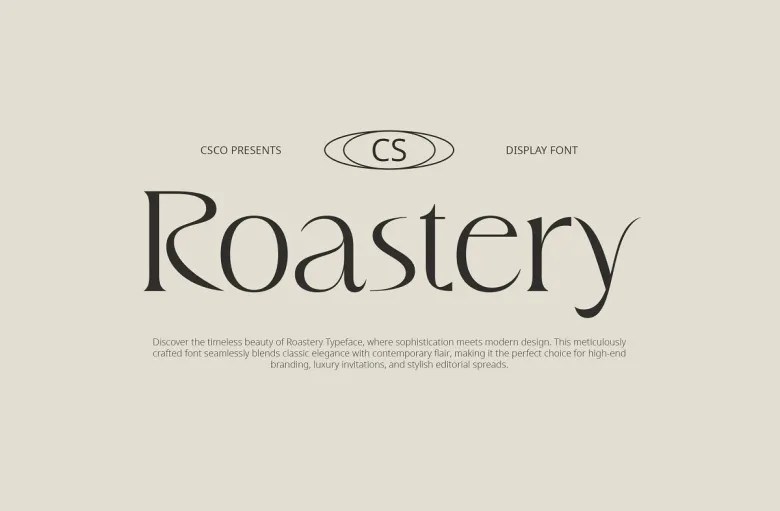
CS Roastery Font
CS Roastery is a sophisticated display serif font that exudes modern elegance and classic charm. With its stylish design and well-proportioned features, this font perfectly balances traditional aesthetics with a contemporary edge. Its noble and refined look adds a touch of class to any project, making it ideal for designs that seek a blend of timeless sophistication and modern flair.
Whether used in editorial layouts, branding, or packaging, CS Roastery brings an air of elegance that enhances the overall design. Its clean lines and classic yet fresh appearance make it a versatile choice for various applications, ensuring that your projects stand out with a distinguished and polished finish.